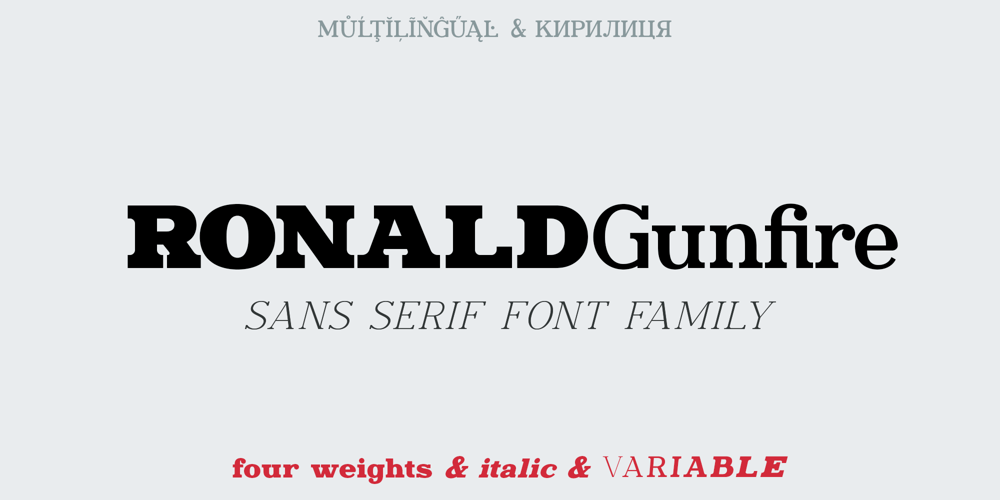
Ronald Gunfire Font Family was designed by Dmytro Poliakh and published by Sentavio. Ronald Gunfire contains 9 styles and family package options. Ronald Gunfire is classic and modern serif Font Family carefully designed and well looking in lowercase and uppercase letters both. It has Four Weights with theirs Italic Versions.Multilingual support (LatinPro & Slavian Cyrillic).